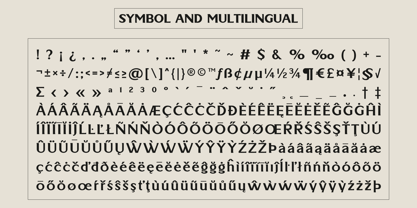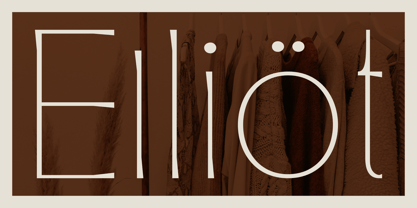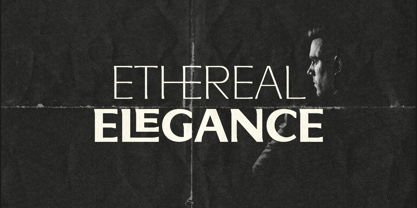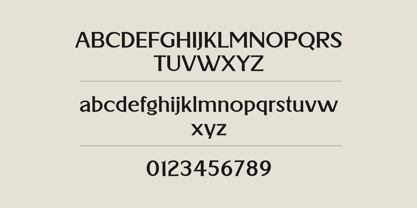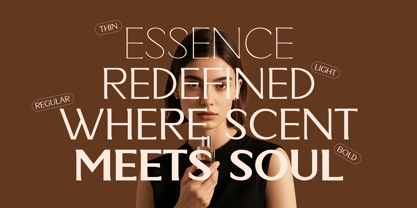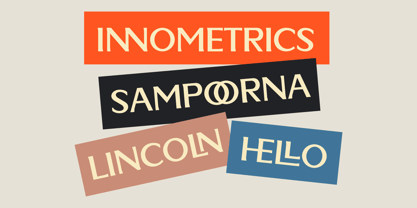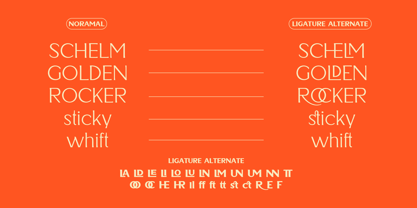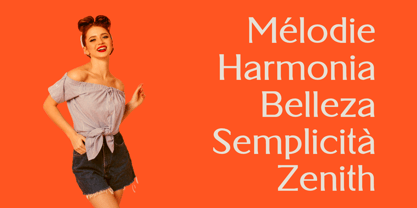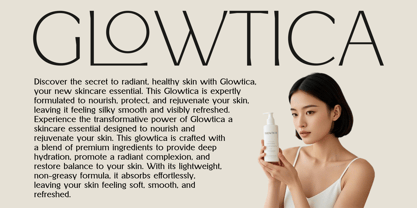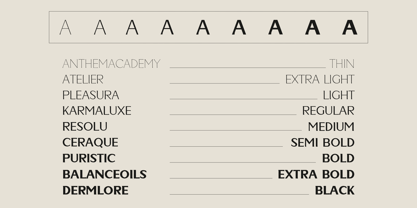
Hillgers
by Eotype
The Hillgers Font Family was designed by Fajar Ramadan and published by Eotype. Hillgers contains 9 styles and family package options.
Elevate your design projects with the Hillgers Serif font family—a meticulously crafted collection of nine elegant styles designed to infuse your creations with sophistication and charm. Perfect for brands, publications, and creatives seeking a timeless yet versatile typographic solution. Hillgers Serif offers a harmonious blend of modern and classic aesthetics. The family includes 9 styles, each tailored to meet diverse design needs.